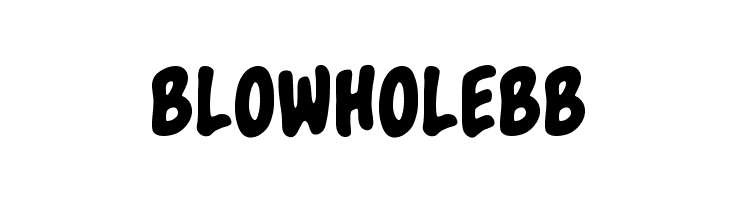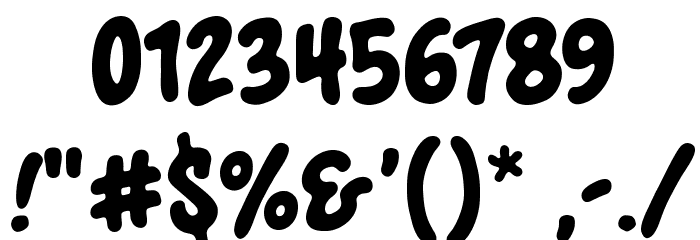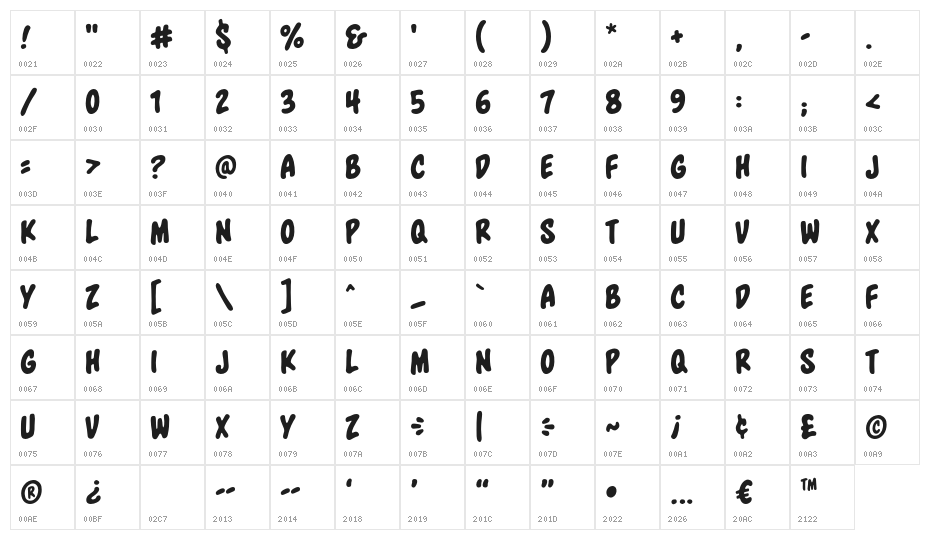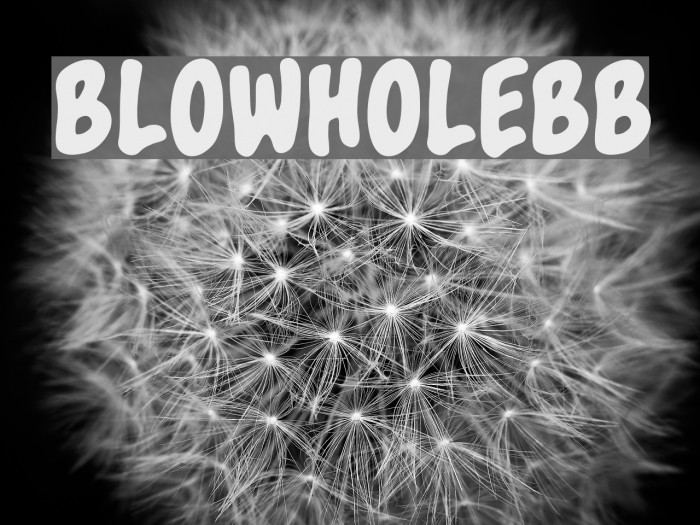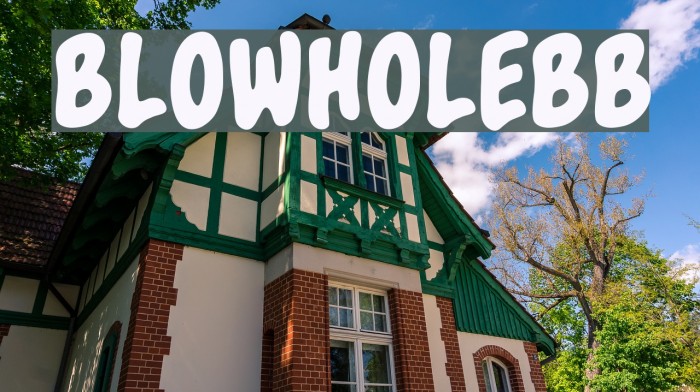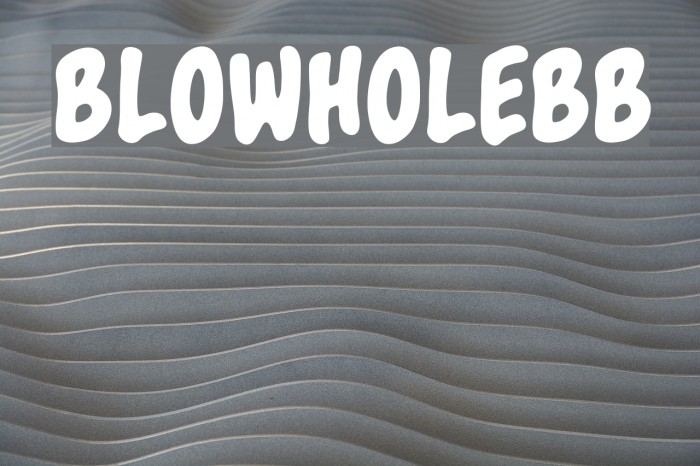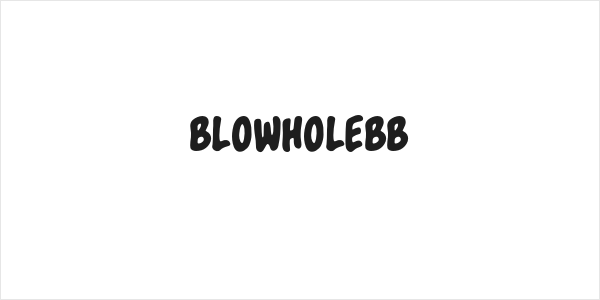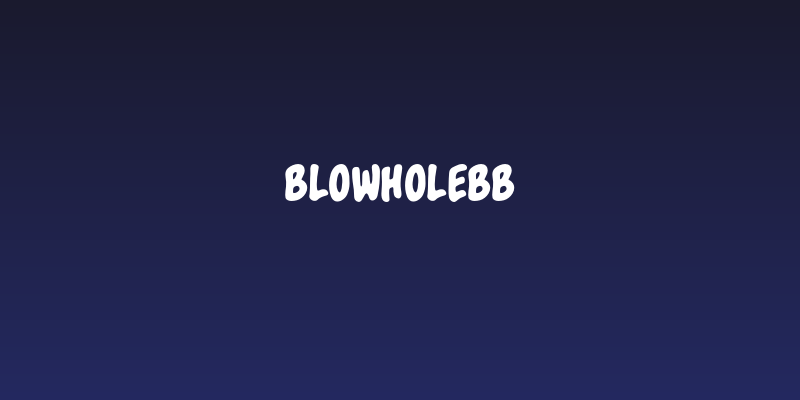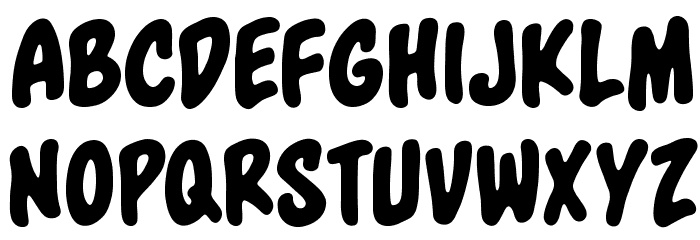
BlowholeBB Font
BlowholeBB Description
This font features a bold, playful style with rounded edges and a slightly irregular form, giving it a hand-drawn appearance. The characters are thick and substantial, creating a strong visual impact. The uppercase and lowercase letters maintain a consistent weight, enhancing readability while retaining a whimsical charm. The numerals and special characters follow the same playful design, making them suitable for creative and informal applications. The overall look is friendly and approachable, ideal for projects that require a touch of fun and personality.
| Proposed Projects | Ideal for children's books, playful branding, posters, and social media graphics. |